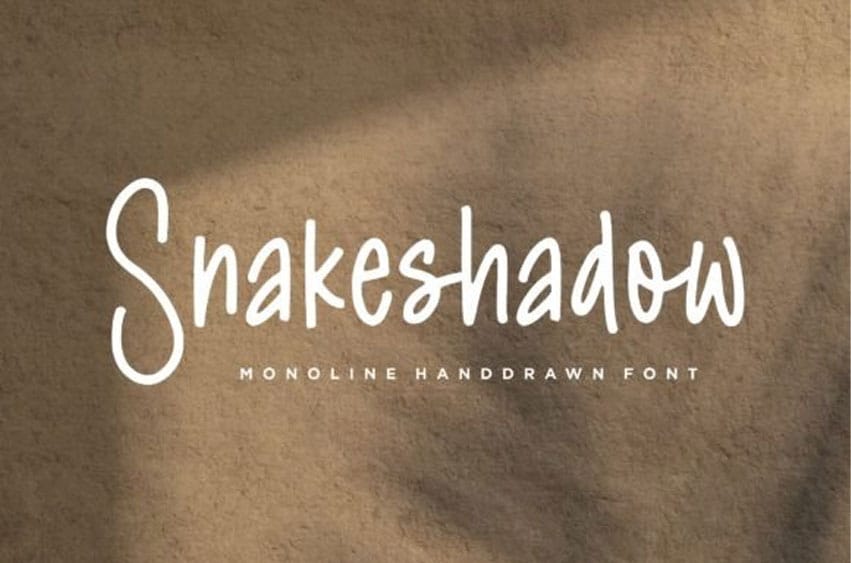
Snakeshadow Font is a thin-lettered handwritten font masterfully crafted to become a true favorite. Contemporary and fresh, it is perfect for any design you wish to create.